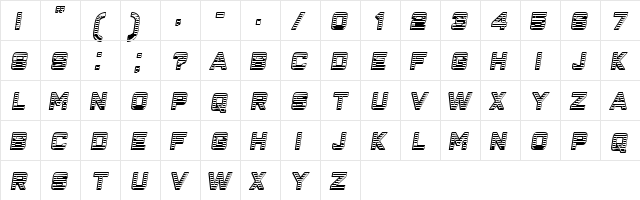
Closeness Outline Gradient Italic
Design Context for Closeness Outline Gradient Typeface
Closeness Outline Gradient is built around its visual character rather than neutral utility — its distinctive forms are designed to make an impression at display sizes. Its italic angle brings a sense of urgency and motion to the letterforms.
Font Pairing: Pair with a clean neutral sans-serif for body copy to let Closeness Outline Gradient's character lead without overwhelming the composition.
Pro Tip: Treat Closeness Outline Gradient as the centrepiece of your typographic hierarchy. One strong heading set in a decorative face can carry an entire layout.